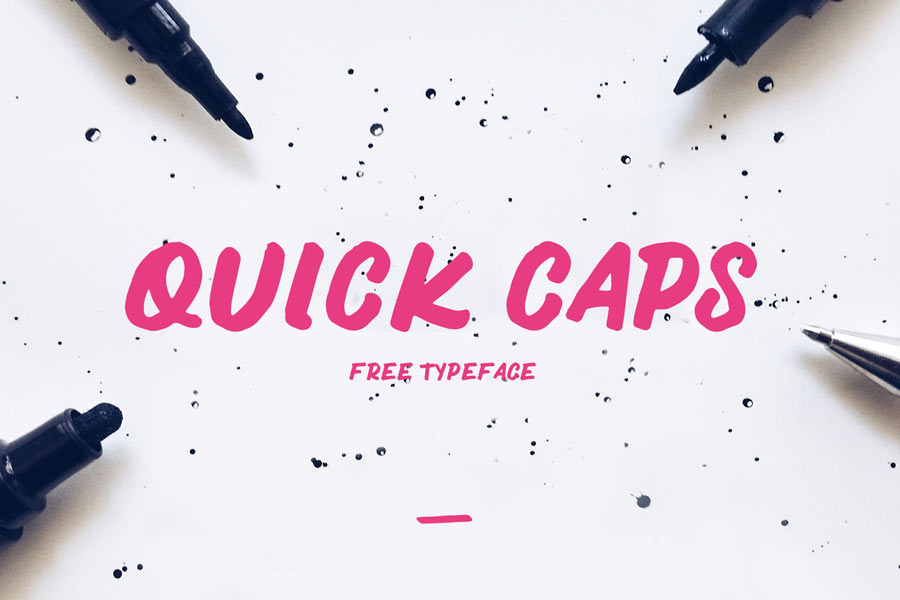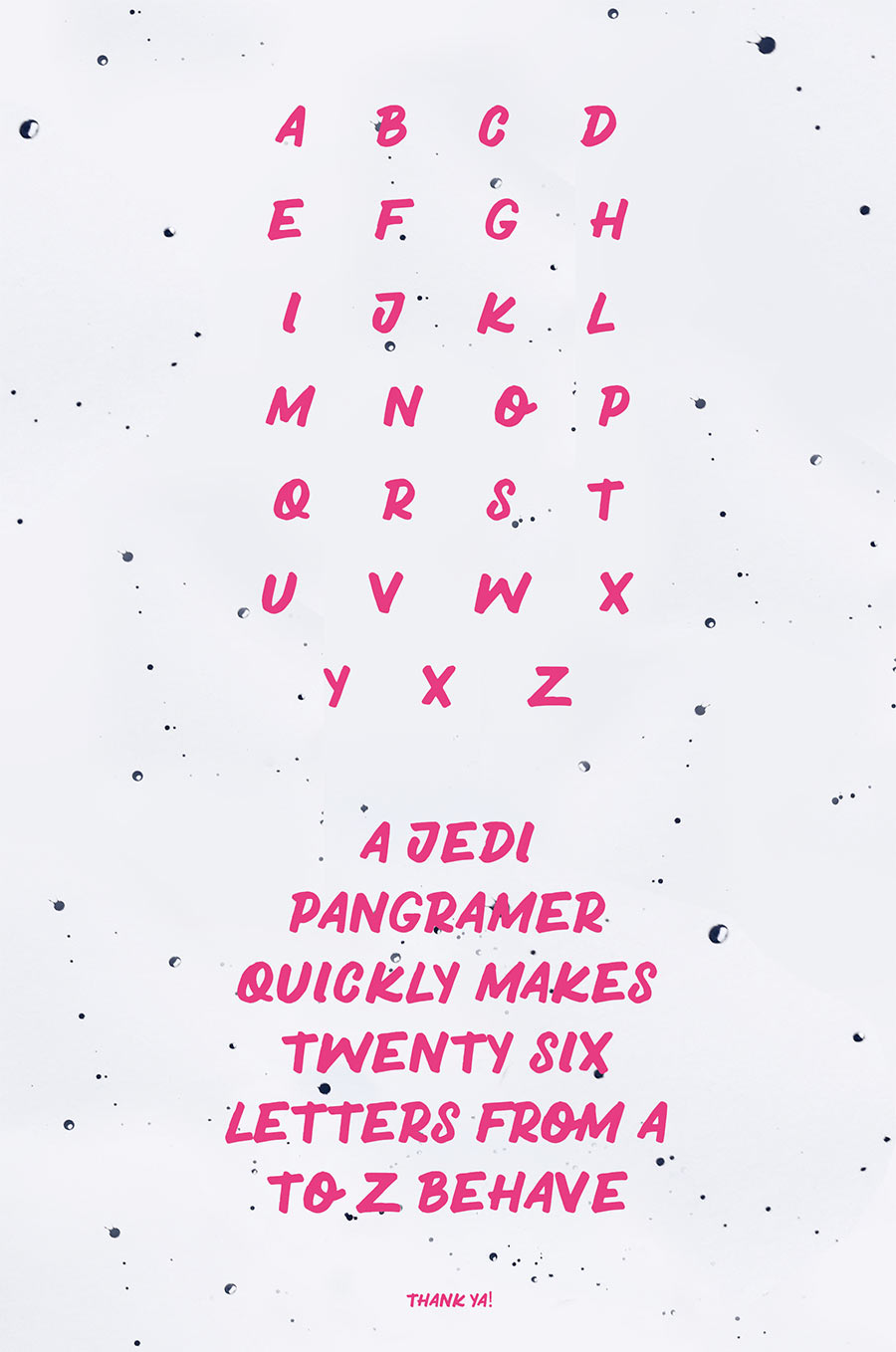
Quick Caps is a free handwriting font personally written by the creator Gehan Magee. Containing alphabets in uppercase only, it’s a handwriting font with creator’s handwriting style. In my opinion, it’s a pretty good looking handwriting mate!
- Designer: Gehan Magee
- Category: Calligraphy/Brush, Handwriting